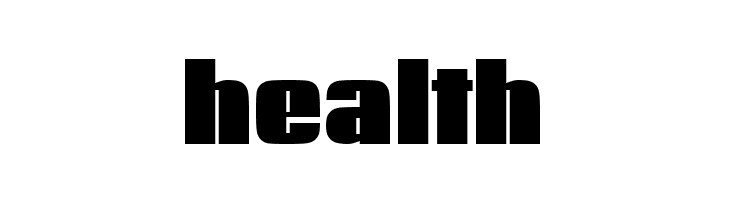
A bold, outlined font with a strong, decorative style.
A bold, playful font with exaggerated, irregular shapes and a dynamic feel.
A bold, dynamic brush script font with expressive strokes and lively movement.
A bold, edgy font with sharp, angular lines and high contrast, ideal for dynamic designs.
A chaotic, overlapping font with heavily obscured characters.
A bold, rounded, and playful font with a chunky, bubble-like appearance.
A bold, modern font with thick strokes and a commanding presence.
A bold, tightly spaced font with thick, rounded strokes and a strong visual impact.
A bold, geometric font with a three-dimensional effect and tight spacing.
A bold, impactful font with thick strokes and rounded edges.
A bold, vintage-style font with stencil-like cut-out elements.
A bold, futuristic font with wide, blocky characters and rounded edges.
A bold, vintage-inspired serif font with thick strokes and a strong presence.
A bold, distressed font with jagged edges and a chaotic style.
A bold, rugged font with a hand-drawn, distressed appearance.
A bold, impactful font with thick strokes and a modern style.
A bold, geometric font with a vintage yet modern appeal, ideal for impactful headlines.
A bold, decorative font with thick strokes and ornate detailing.
A bold and impactful font with thick strokes, ideal for headlines.